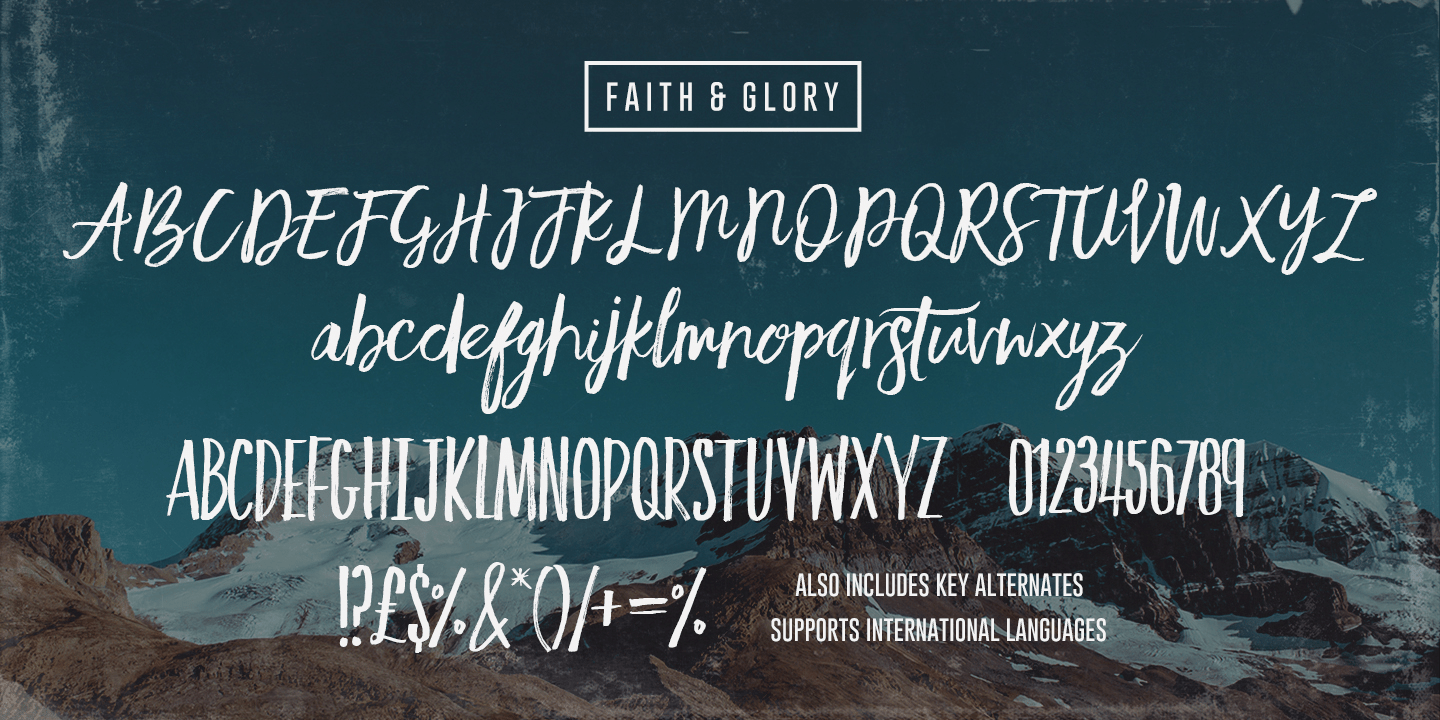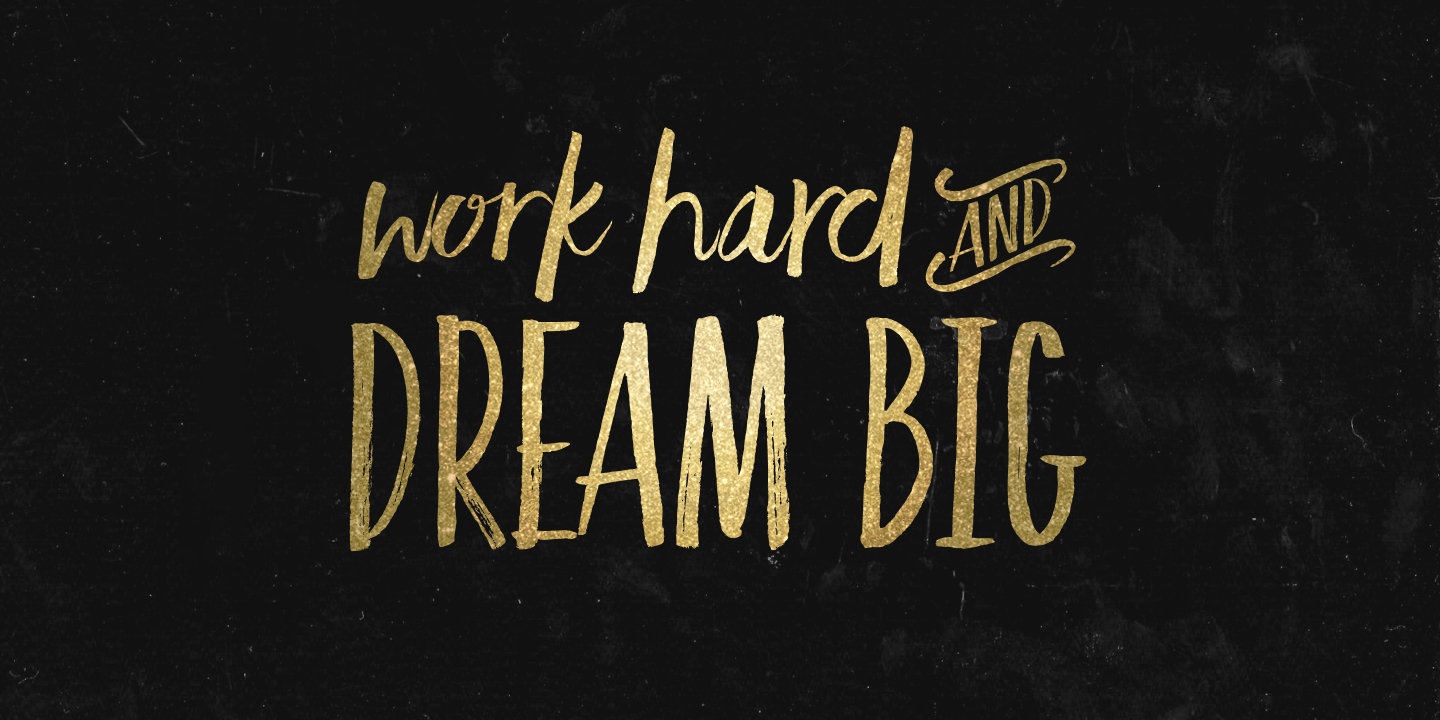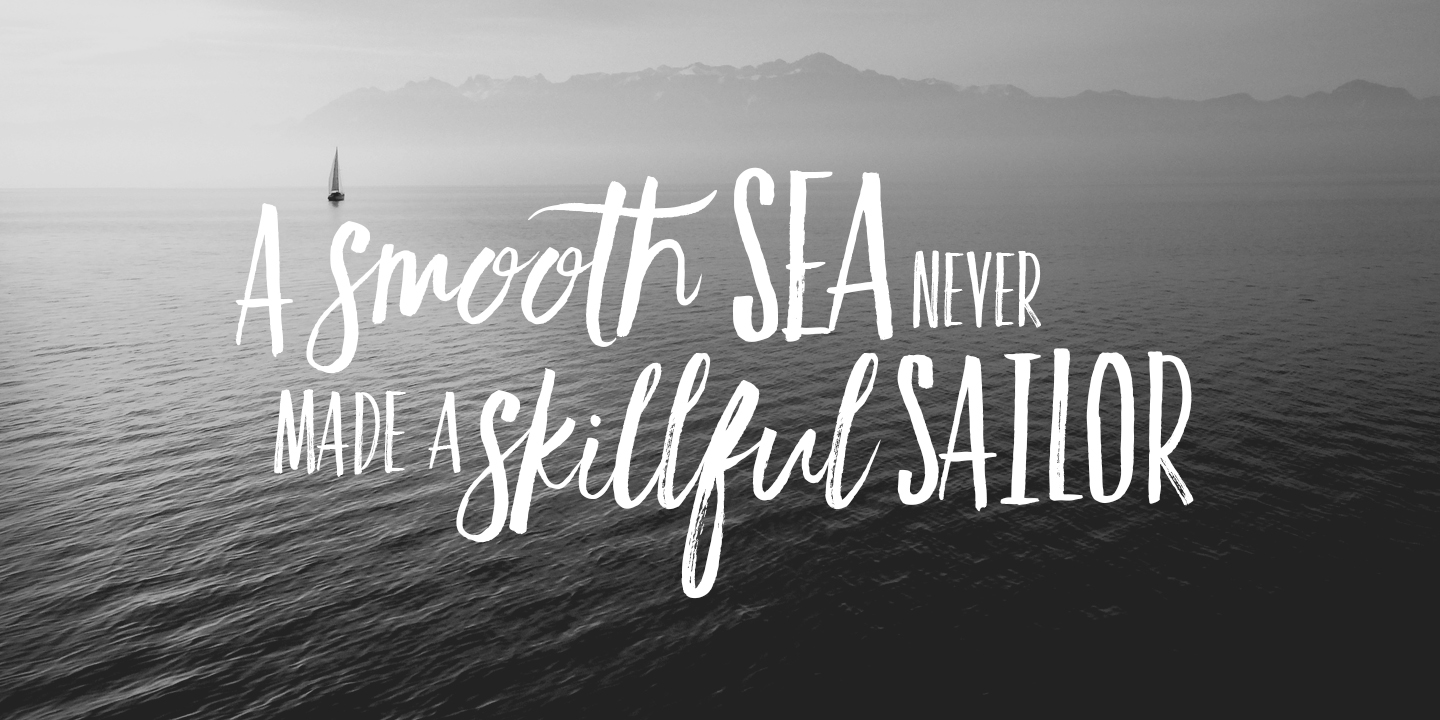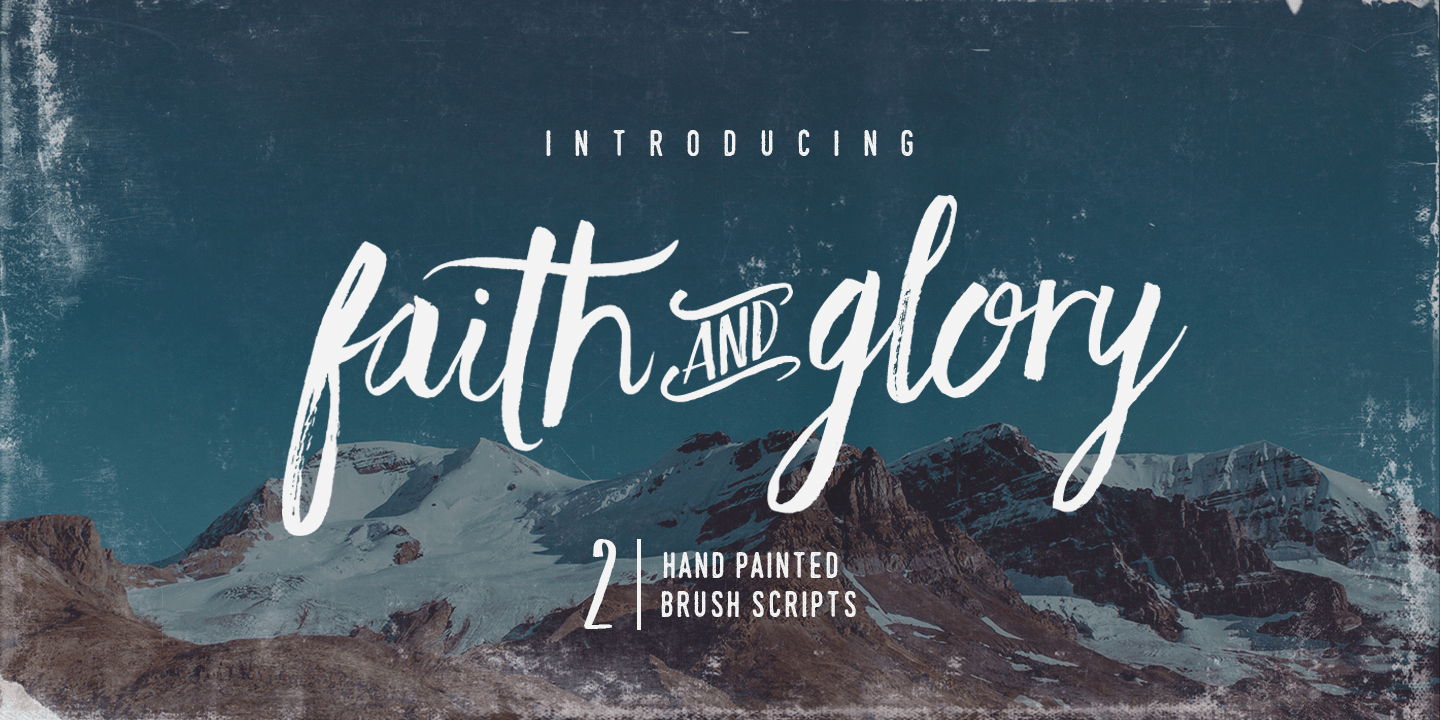
Faith and Glory
Font Family by Set Sail Studios
Thanks for checking out Faith and Glory! These 2 hand-painted brush fonts are designed to perfectly combine with one another and allow you to create beautiful rustic typography with a personal touch. Ideal for; Logos, printed quotes, invitations, image overlays, greeting cards, product packaging, text headers, & whatever else your imagination holds! Faith and Glory One Is a script font which includes upper & lowercase characters, punctuation, numerals, and multilingual support. Alternates are available for several lower case characters, these are accessible by turning on 'Stylistic Alternates', or via any software with a Glyphs panel. Faith and Glory Two is a condensed brushed font containing uppercase only characters, punctuation, numerals, and multilingual support are also included. Alternates are available for key characters, you can access these simply by switching between upper & lower case glyphs within the 2 fonts (e.g. typing 'A' and 'a' will give you 2 alternate characters).